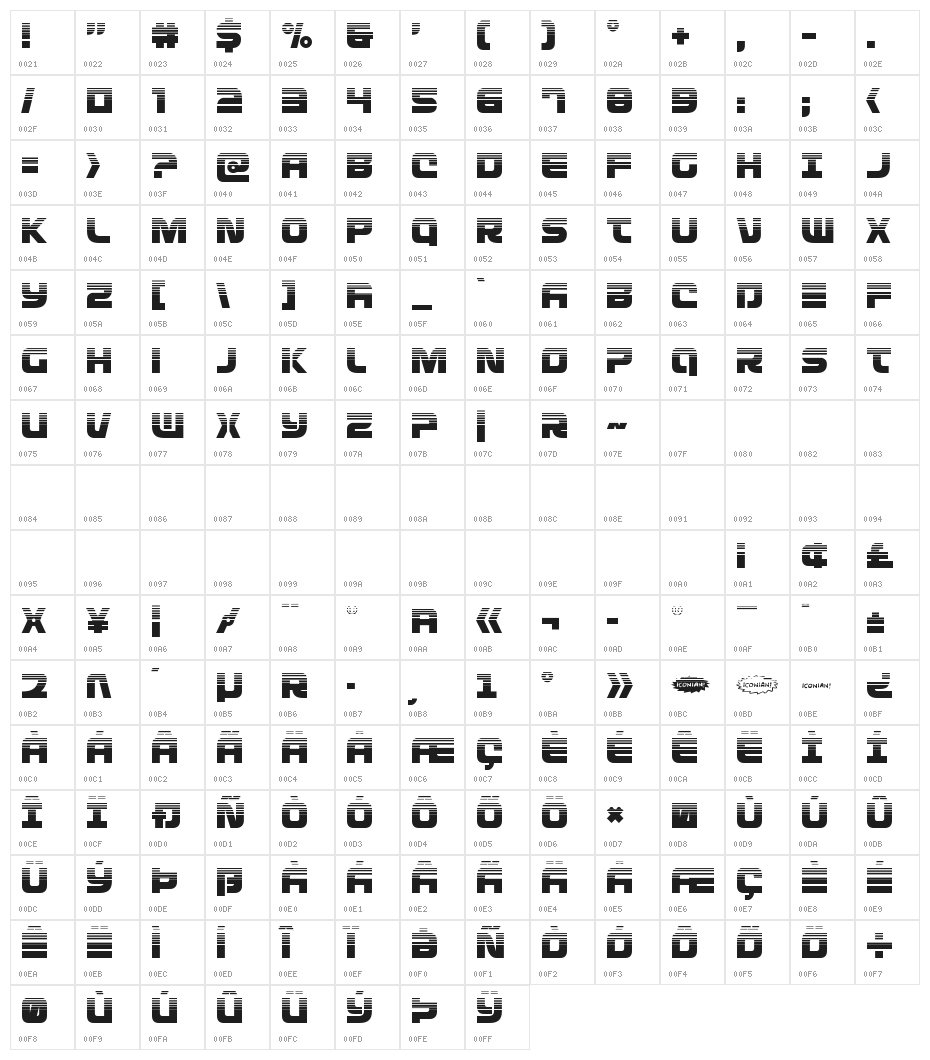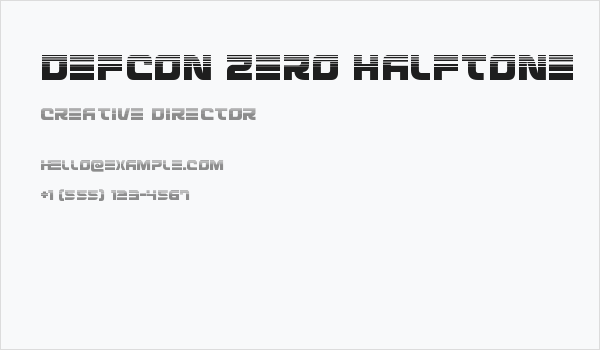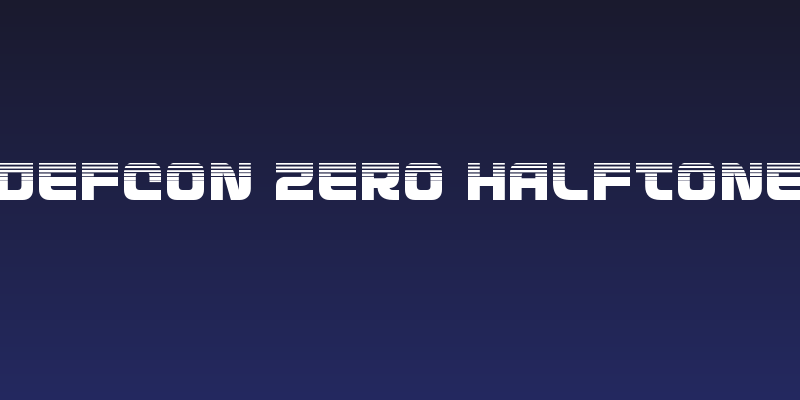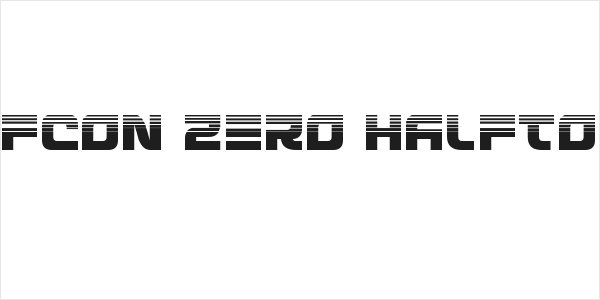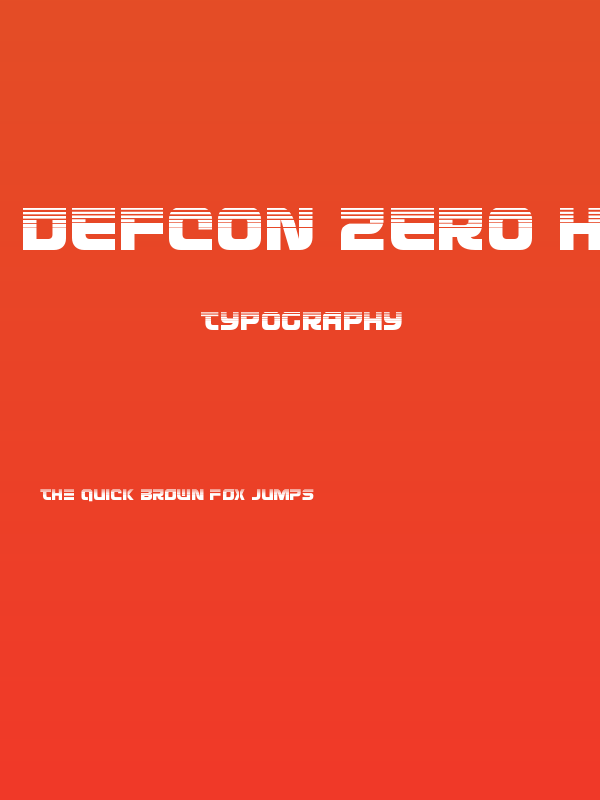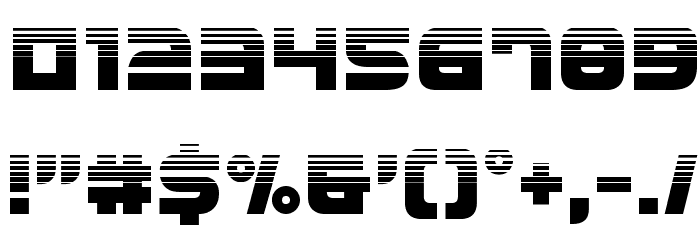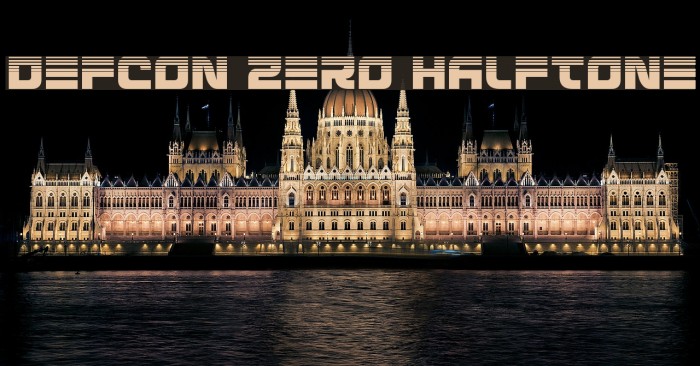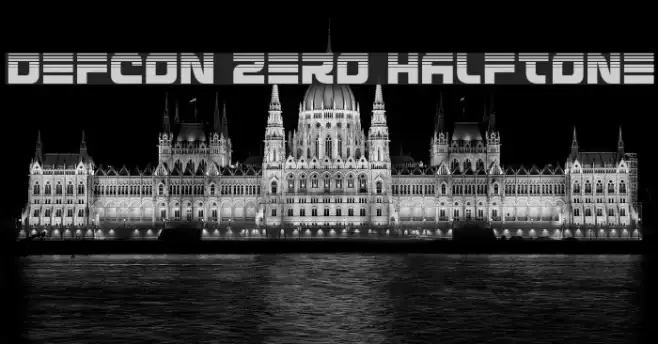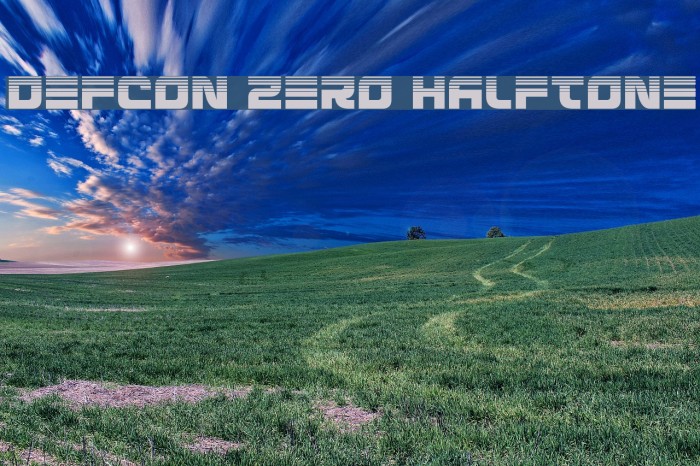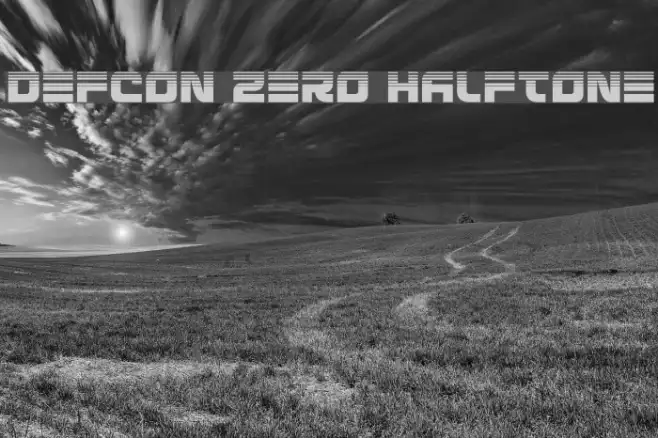
Defcon Zero Halftone Font
Defcon Zero Halftone Description
This font features a bold, futuristic design with a unique halftone effect that gives it a dynamic and edgy appearance. The characters are constructed with a series of horizontal lines that create a sense of movement and depth. The uppercase and lowercase letters maintain a consistent style, with sharp angles and geometric shapes that enhance its modern aesthetic. The numbers and special characters are equally bold, ensuring a cohesive look across all text elements. This font is ideal for projects that require a strong visual impact and a contemporary feel.